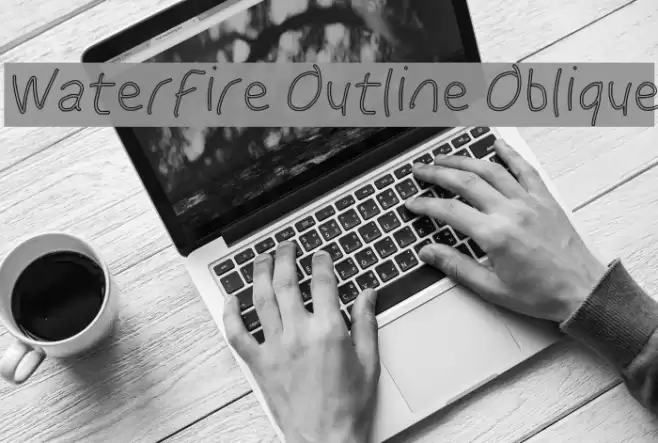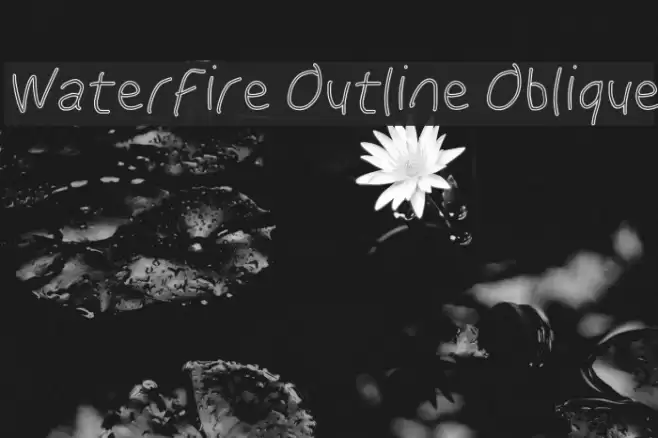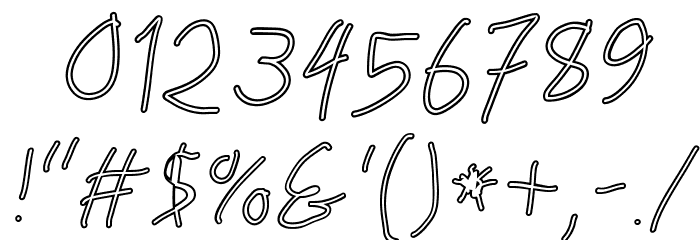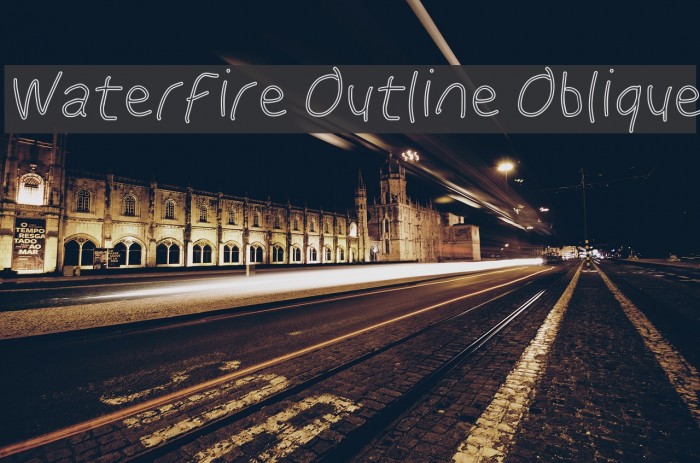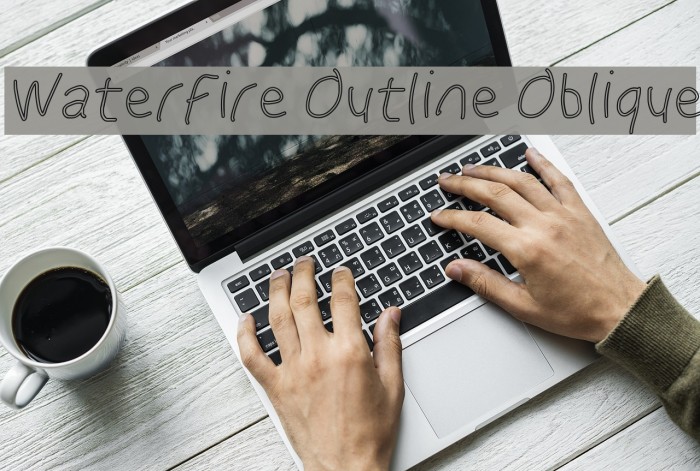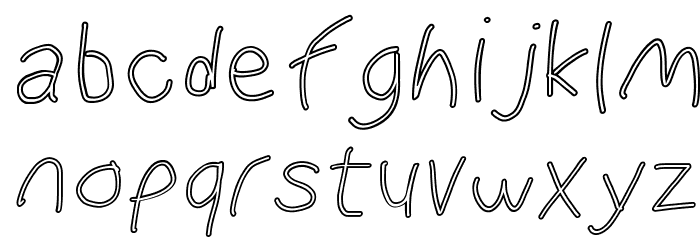
WaterFire Outline Oblique Font
WaterFire Outline Oblique Description
This font features a playful and casual outline style with an oblique slant, giving it a dynamic and informal appearance. The characters are hand-drawn, with a consistent stroke width that maintains a uniform look across all letters and numbers. The uppercase and lowercase letters are well-proportioned, with a slight tilt that adds to the font's energetic feel. The numerals and special characters follow the same design principles, ensuring coherence throughout. This font's outline design makes it stand out, ideal for projects that require a touch of creativity and fun.
A playful, oblique outline font with a hand-drawn, casual style from Uncategorized fonts.
- Proposed Projects: Ideal for children's book covers, playful branding, creative posters, and informal invitations.
- Overall Style: Casual, Playful